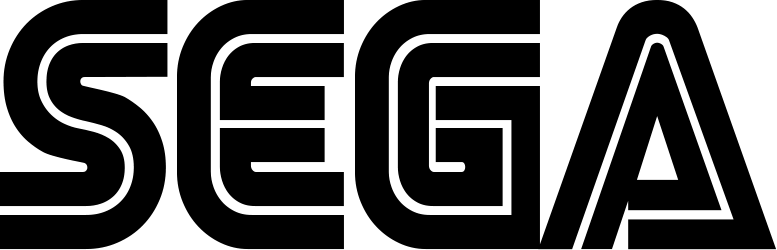
Sega Logo Font
A notably classic and highly iconic font. The kind of sci-fi font that even at a quick glance, anybody would recognize and lend their attention to. Sega font is strong with outlined lettering. It’s so futuristic and has aged so well that holds perfectly well with today’s standards.